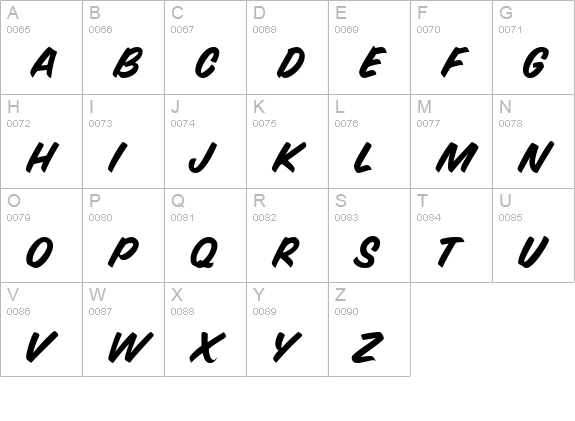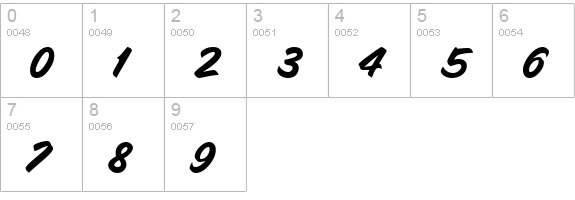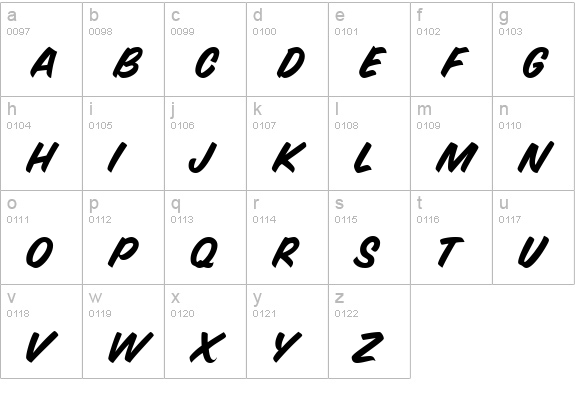
Speedy Marker Regular Font Details
Speedy Marker Regular is the standard, neutral variant in the Speedy typeface family \xE2\x80\x94 well suited to general body text, paragraphs, and standard typographic work.
Speedy Marker Regular font is a versatile and dynamic typeface that adds a touch of playfulness and spontaneity to any design. This font captures the essence of quick brush strokes, creating a sense of movement and energy. Its irregular letterforms give a hand-drawn quality, making it perfect for projects that require a personal and authentic feel. With its bold appearance and bold personality, Speedy Marker Regular font is ideal for headlines, titles, logos, and branding materials. It injects a sense of fun and excitement into any design, making it stand out from the crowd. Its unique style makes it a great choice for a wide range of projects, from children's books and packaging to posters and social media graphics. One of the best things about Speedy Marker Regular font is that it is freely available to download at FontsMarket.com. This means that you can take advantage of this remarkable font without worrying about any additional costs. Whether you are a professional designer or a creative enthusiast, this font will become your go-to choice for all your typography needs. So go ahead and unleash your creativity with Speedy Marker Regular font. Download it for free at FontsMarket.com and let your designs come to life with its vibrant and energetic vibe.